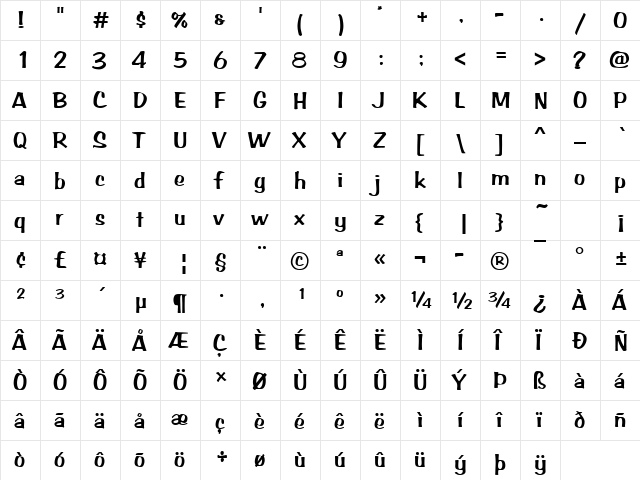
Arab Becker Brushstroke Regular
Design Context for Arab Becker Brushstroke Typeface
Arab Becker Brushstroke flows with the natural rhythm of handwritten lettering, making it ideal for designs that call for warmth and personal expression.
Font Pairing: Combine Arab Becker Brushstroke with a simple geometric sans for maximum contrast — the tension between flowing curves and clean structure is a classic typographic pairing.
Pro Tip: Use Arab Becker Brushstroke for short runs of text — names, titles, or taglines. Extended body copy in script faces tires the eye quickly.